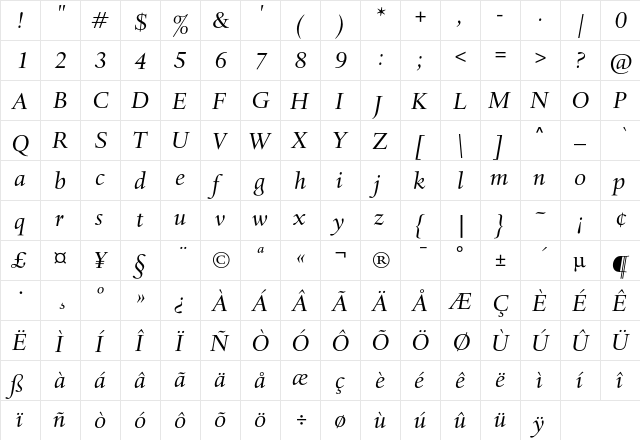
DTLHaarlemmerD Italic
Design Context for DTLHaarlemmerD Typeface
DTLHaarlemmerD is a composed and adaptable typeface that performs quietly and consistently across a wide range of design contexts. The dynamic lean of this cut emphasises speed and emphasis in any layout.
Pro Tip: Try DTLHaarlemmerD for annotation and caption copy alongside an upright companion — the contrast in angle creates a dynamic but ordered typographic system.